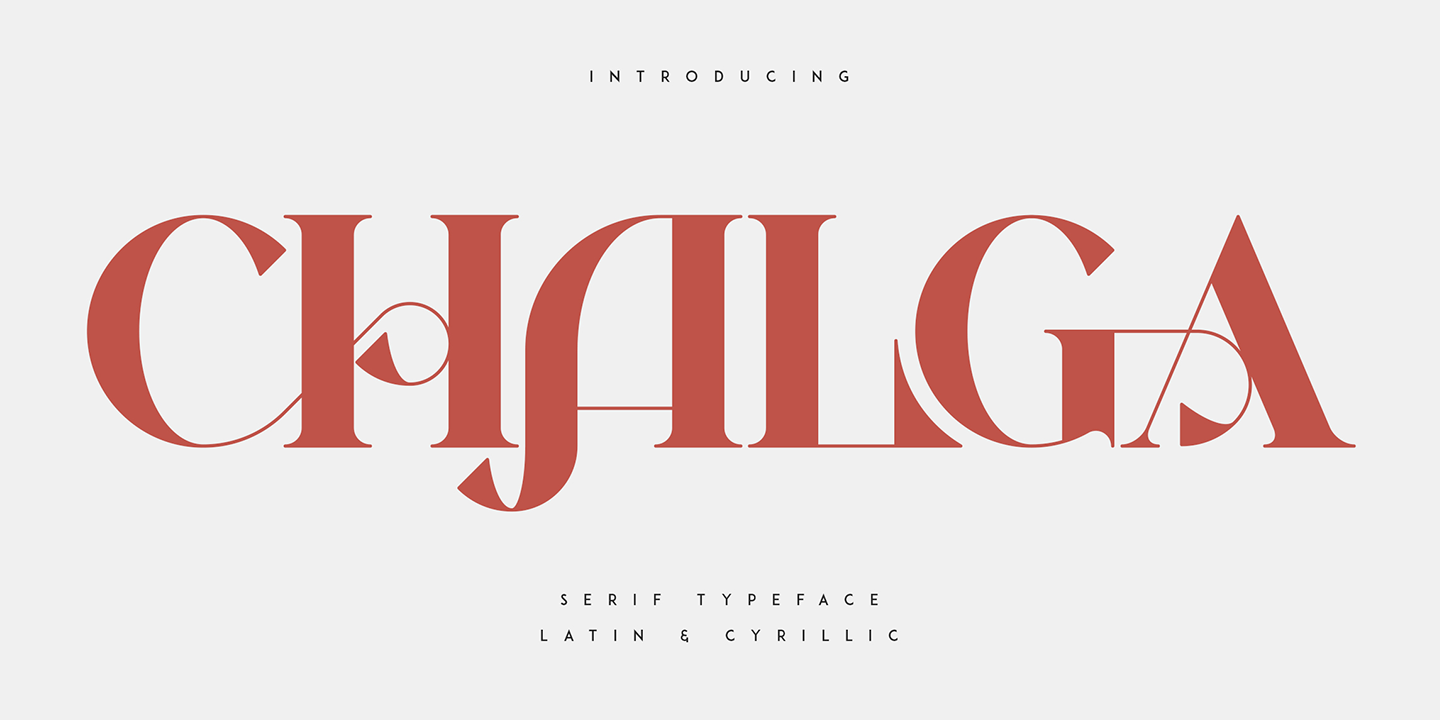
Chalga VP Font is perfect for Balkan music venues, Eastern European cultural festivals, traditional folk dance promotions, Bulgarian heritage events, Roma cultural celebrations, Balkan restaurant branding, world music album covers, and multicultural entertainment materials. This vibrant typeface brings Balkan musical energy and Eastern European cultural richness to any design project celebrating the passionate rhythms and colorful traditions of Balkan folk culture.
What makes Chalga VP Font exciting is its dynamic capture of Balkan musical spirit combined with cultural authenticity that perfectly embodies the energetic rhythms and passionate expression characteristic of chalga and Eastern European folk traditions. The spirited letterforms feature rhythmic proportions and cultural vibrancy that create an unmistakably festive appearance. Each character dances with musical energy, making it ideal for brands that celebrate Balkan culture, folk music traditions, and the joyful spirit of Eastern European entertainment.
The Chalga VP Font family typically includes regular and bold weights with complete uppercase and lowercase letters, numbers, punctuation marks, and cultural symbols. Many versions feature additional Balkan decorative elements, folk motifs, and traditional Eastern European symbols that enhance the cultural aesthetic and provide creative flexibility for multicultural and entertainment design applications.
Whether you're developing Balkan cultural brands or creating folk music event materials, Chalga VP Font Free Download offers unmatched cultural authenticity and musical energy. This vibrant typography choice transforms ordinary text into cultural celebrations that resonate with audiences who appreciate Eastern European traditions and Balkan musical heritage. The font's energetic construction ensures exceptional performance across cultural applications while maintaining its distinctive Balkan character that makes every design project feel like a traditional folk festival where music, dance, and cultural pride unite in joyful celebration of Eastern European heritage.